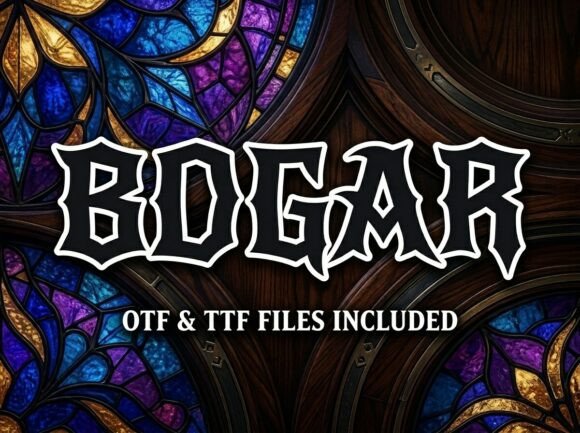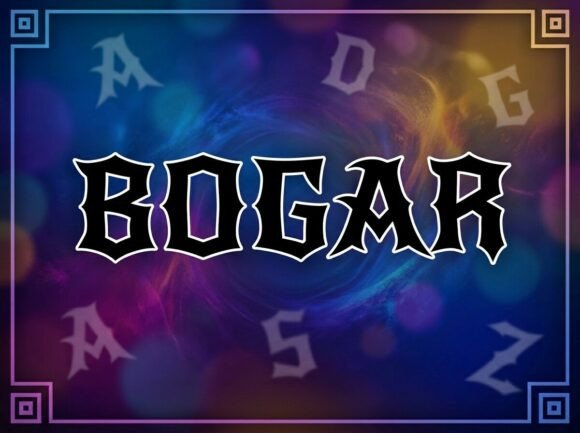
Introducing Bogar Font: A Stunning Decorative Display Font
Are you tired of using the same old fonts for your designs? Look no further than Bogar Font, a unique and artistic display font that’s sure to turn heads. Designed to be the center of attention, Bogar Font features a strong visual personality and artistic elements that will elevate your designs to the next level.
What Makes Bogar Font Special?
Bogar Font is a versatile decorative display font that’s perfect for creators who want to break away from the ordinary. Its unique design makes it ideal for bold headlines, artistic logos, and creative packaging, while maintaining a professional and polished finish. Whether you’re a designer, crafty DIY enthusiast, or entrepreneur, Bogar Font is the perfect addition to your font collection.
Before purchasing Bogar Font, please note that it’s an ALL-CAPS (Uppercase Only) display typeface. This means it does not include lowercase letters. It’s specifically designed for high-impact headlines, logos, and decorative initials where every letter is a work of art.
This unique design feature allows for maximum visual impact, making it perfect for:
- Eye-catching headlines and titles
- Artistic logos and branding
- Creative packaging and labeling
- Decorative initials and quotes
Why Choose Bogar Font?
So why choose Bogar Font over other decorative display fonts? Here are just a few reasons:
- Unique Design: Bogar Font features a one-of-a-kind design that’s sure to stand out from the crowd.
- Versatility: Use Bogar Font for a variety of design projects, from bold headlines to artistic logos.
- Professional Finish: Despite its decorative nature, Bogar Font maintains a professional and polished finish.
Tips for Using Bogar Font
Here are a few tips for getting the most out of Bogar Font:
- Experiment with Font Sizes: Bogar Font looks great in large font sizes, but don’t be afraid to experiment with smaller sizes for a more subtle effect.
- Play with Color: Bogar Font looks great in bold, bright colors, but also try using it in more muted tones for a sophisticated look.
- Mix and Match: Combine Bogar Font with other fonts for a unique and eye-catching design.